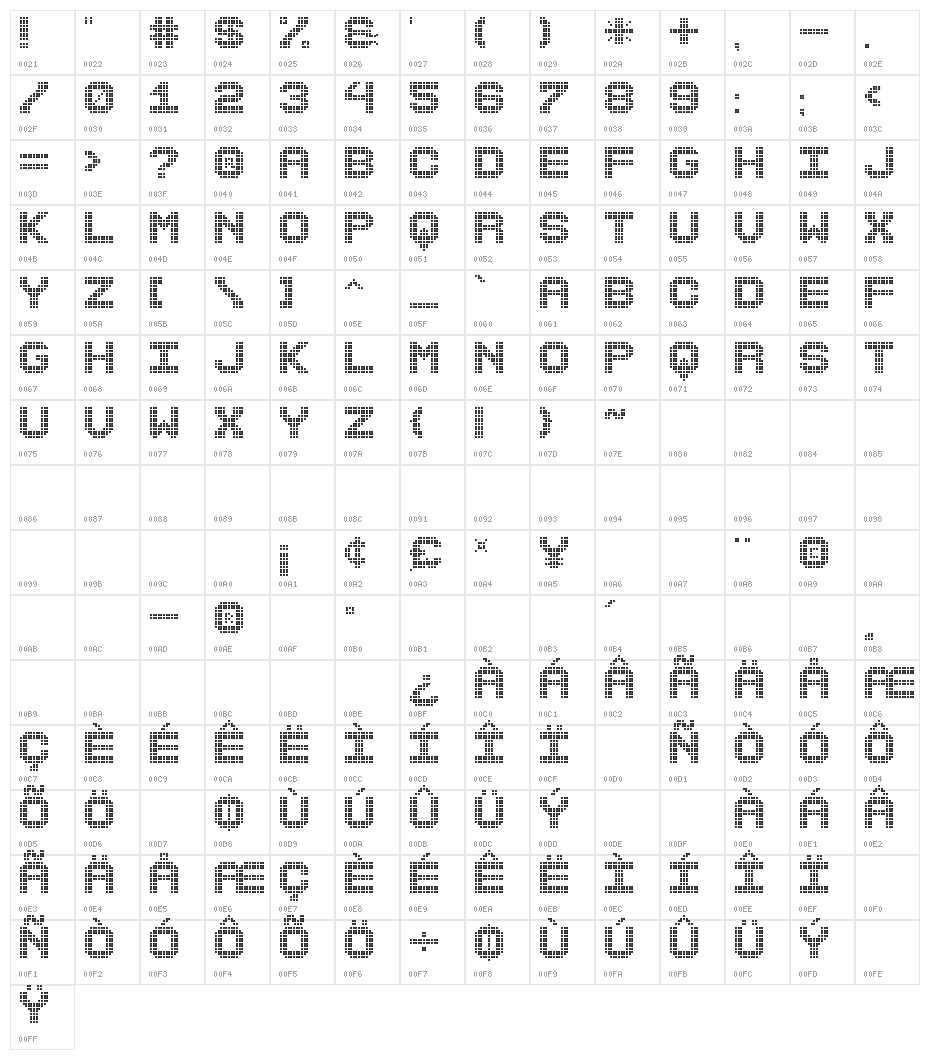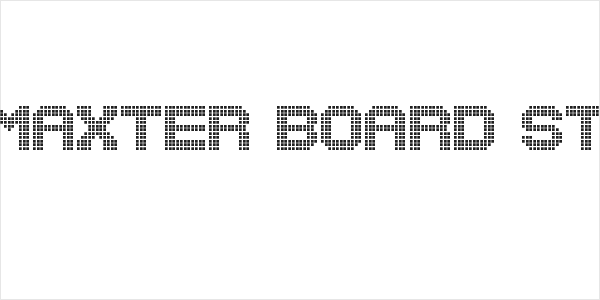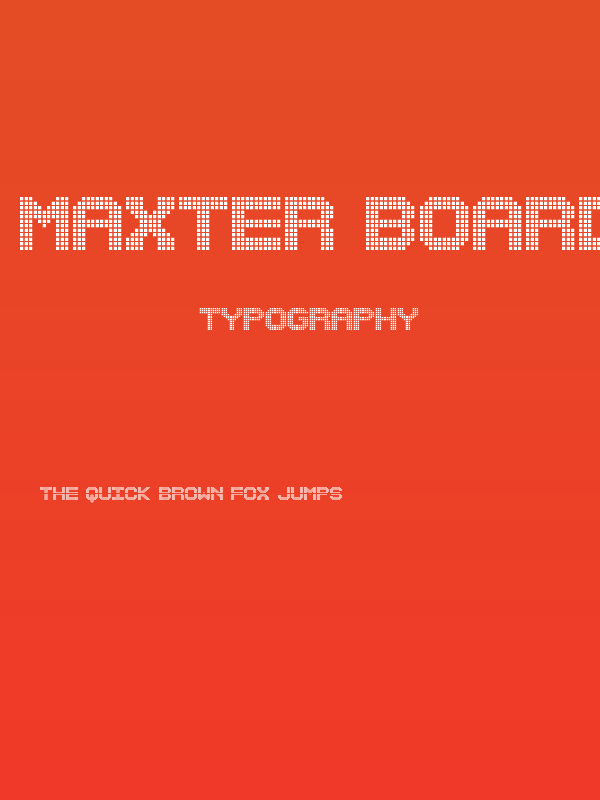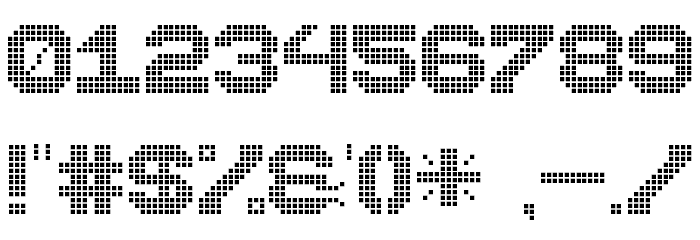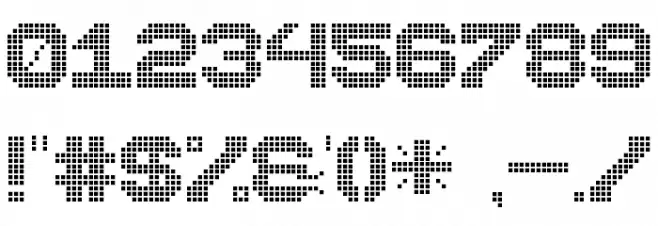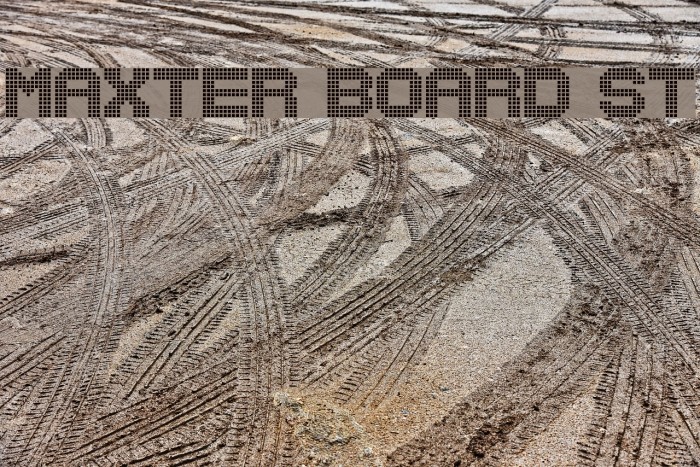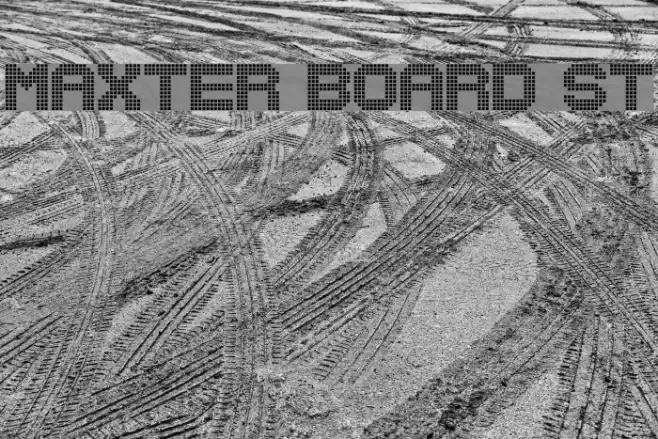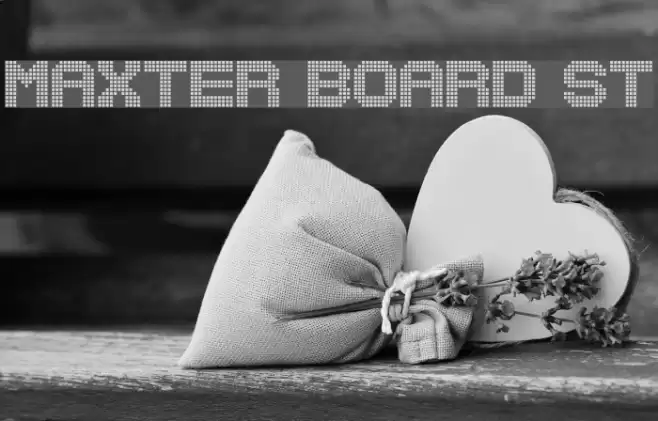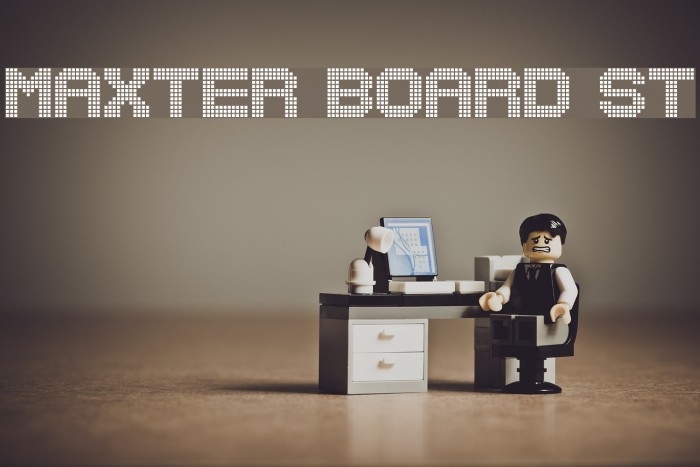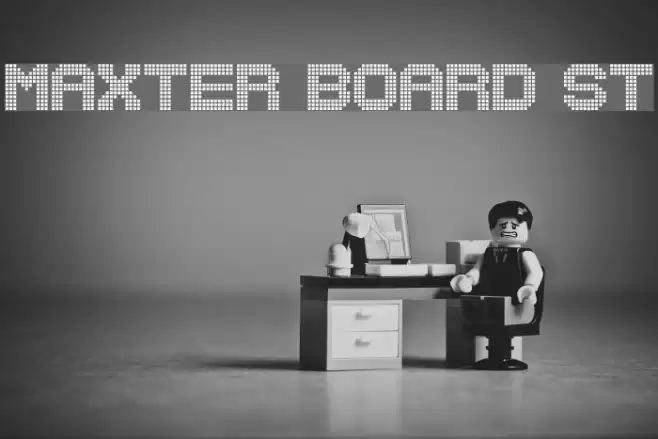
Maxter Board St Font
| Caz de utilizare | Headlines, Logos, Digital Displays |
| Proiecte propuse | Ideal for digital displays, tech-themed posters, video game graphics, or any project requiring a modern, digital aesthetic. |